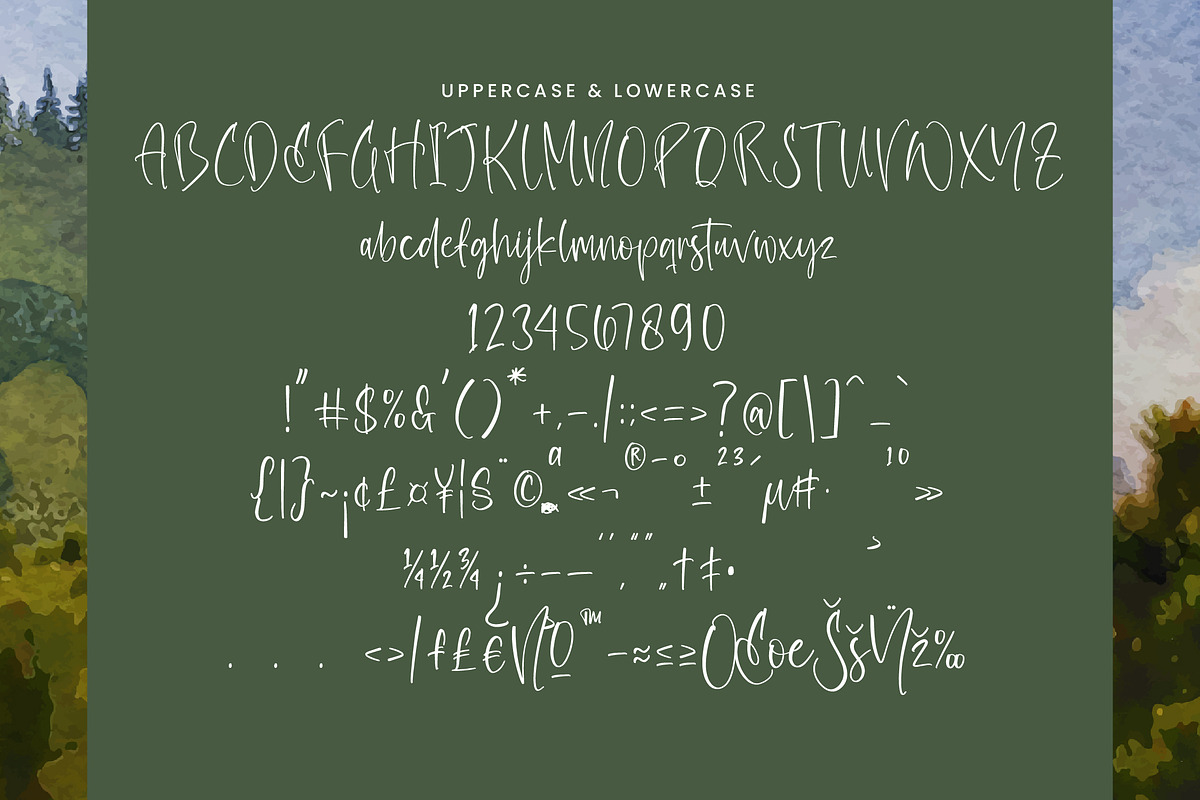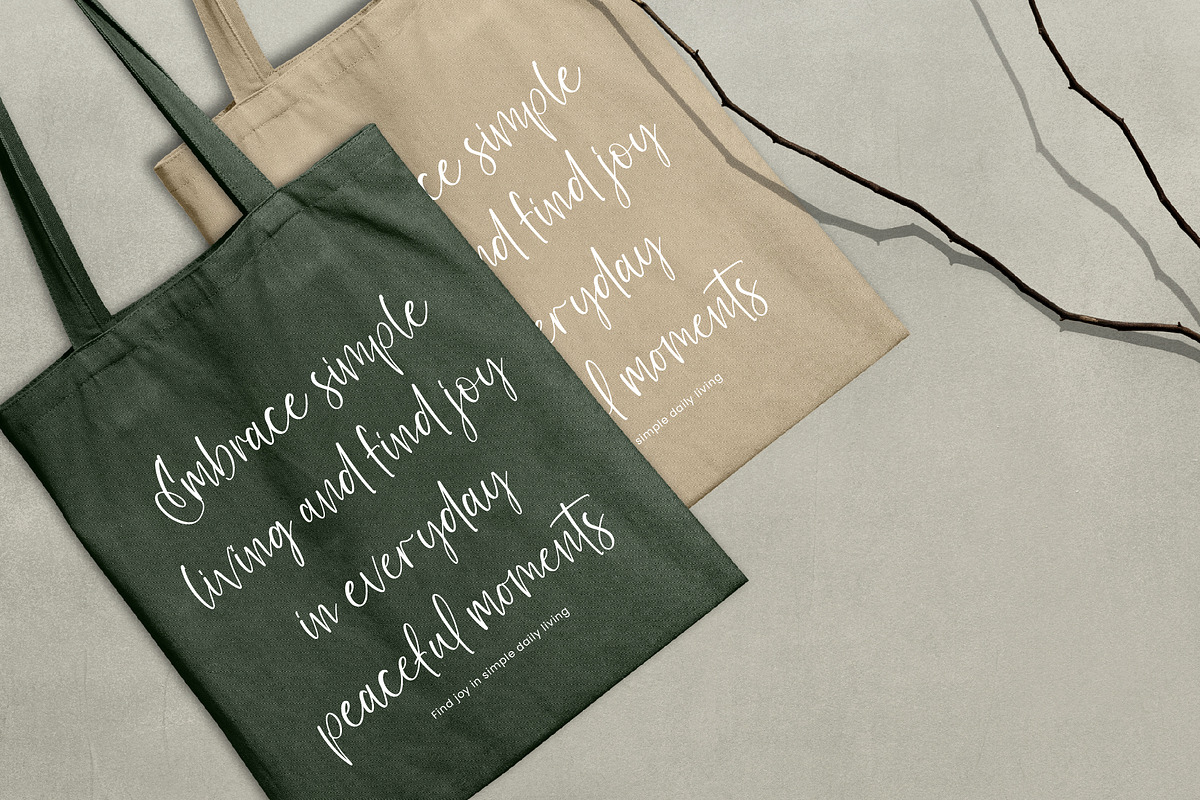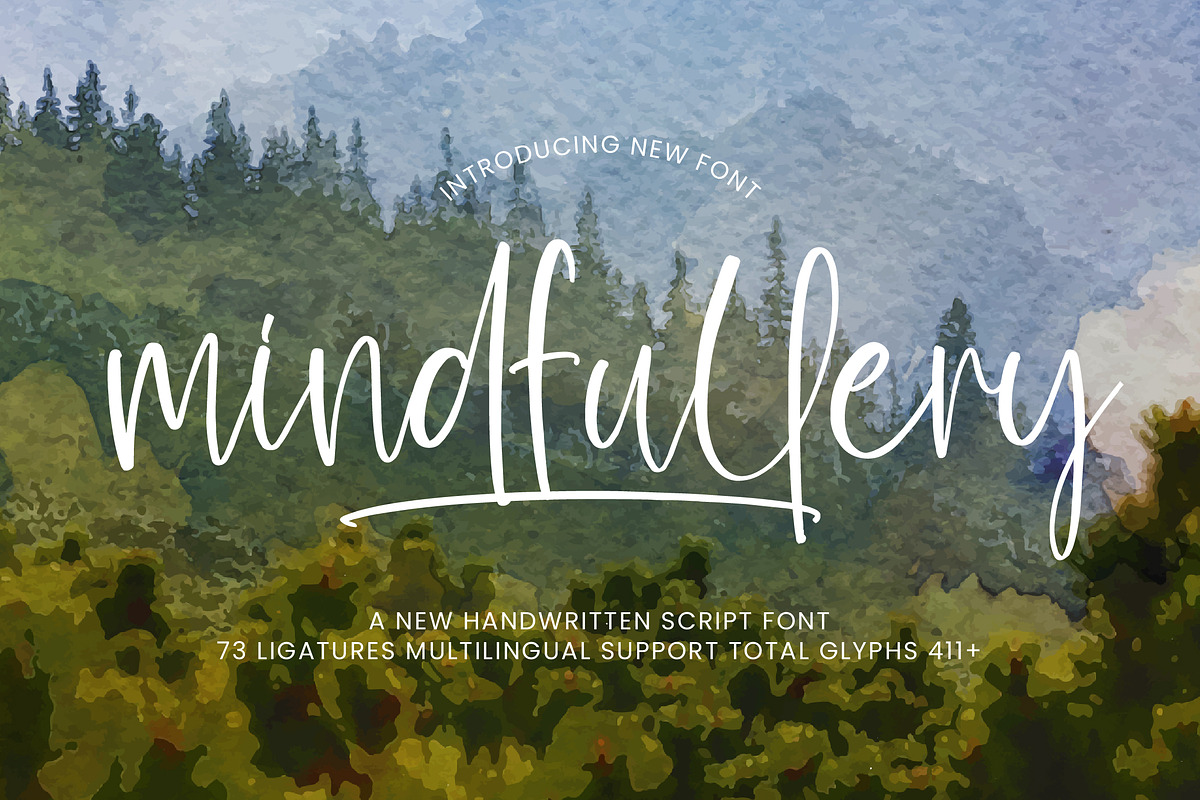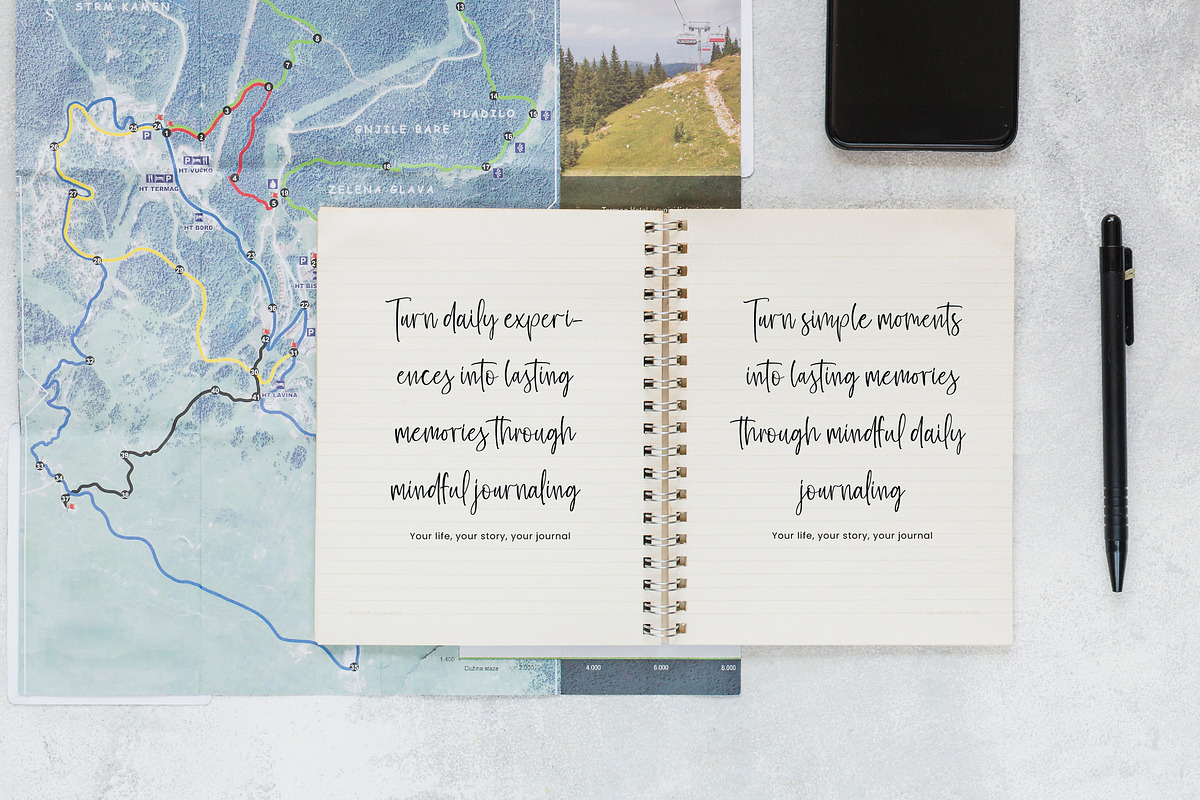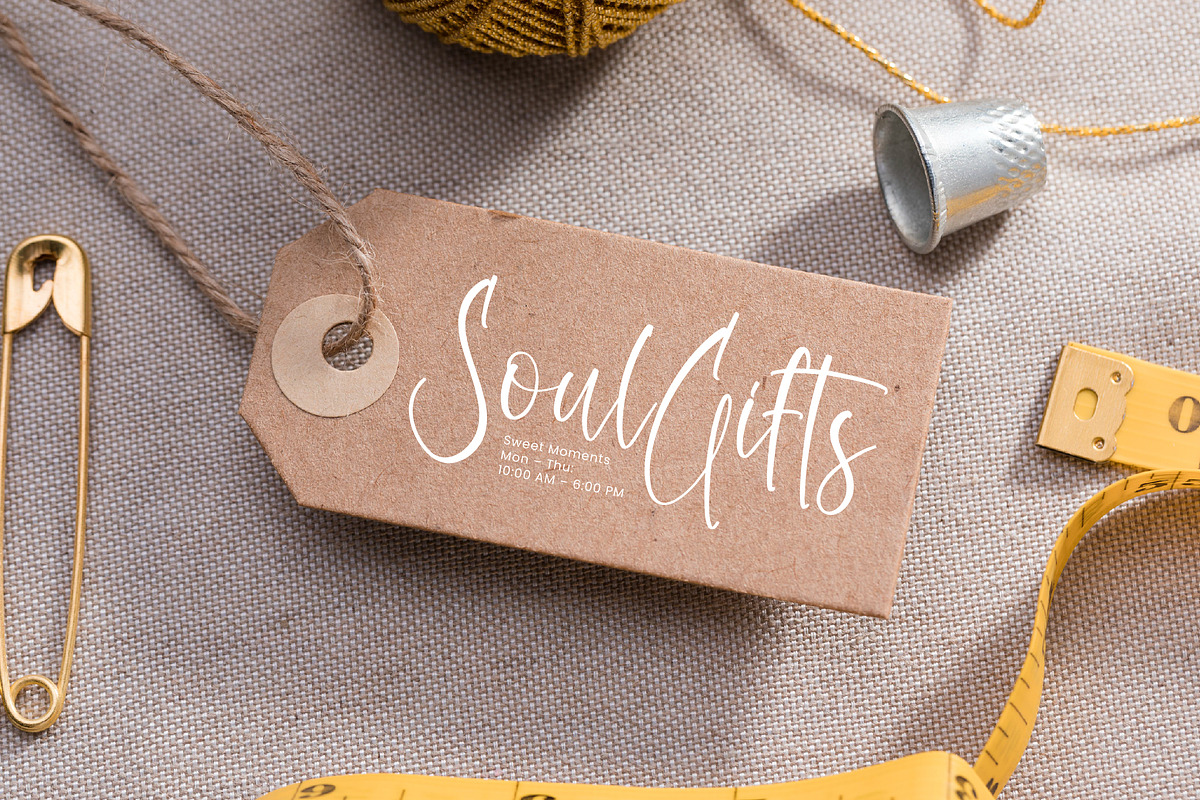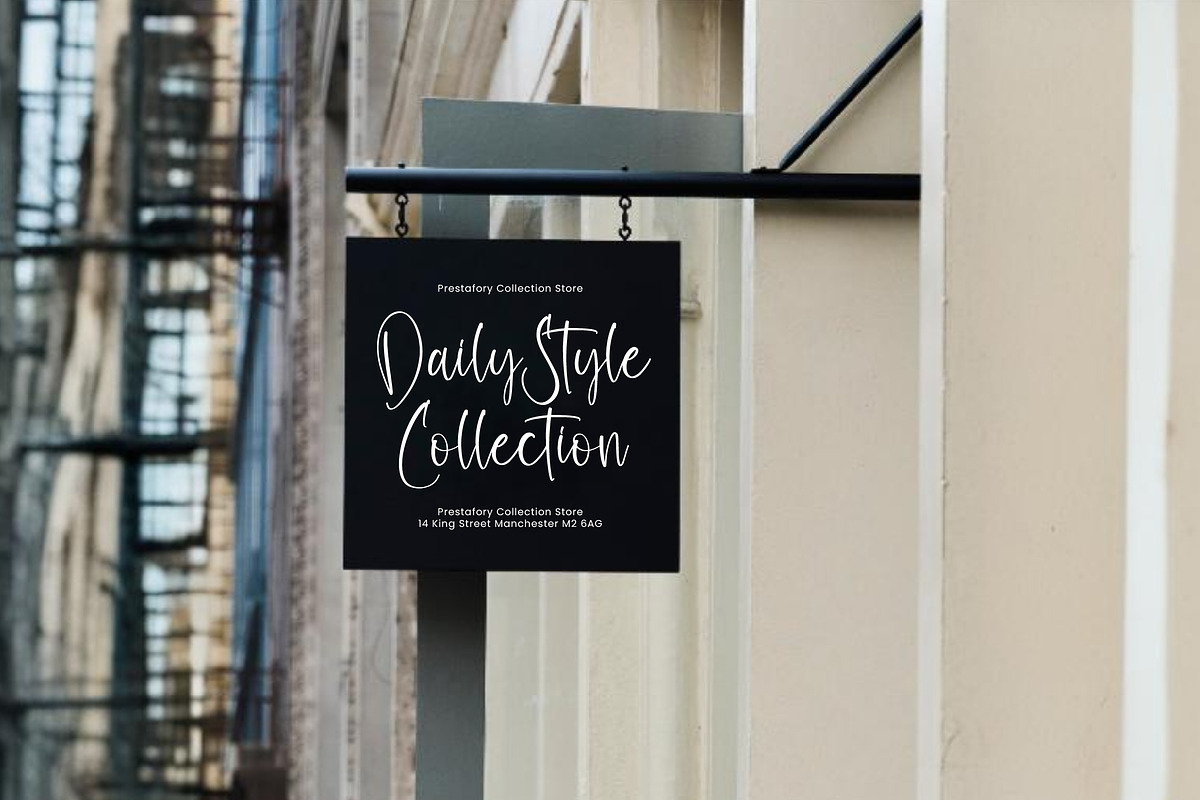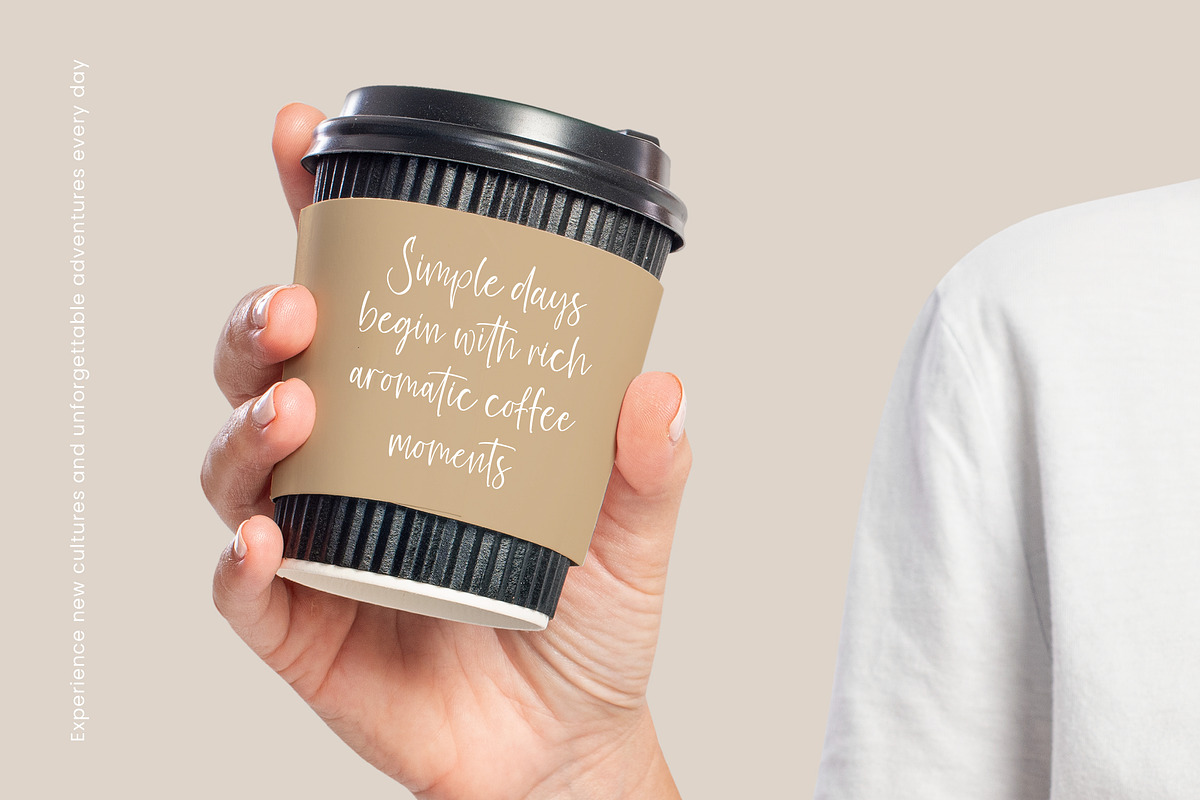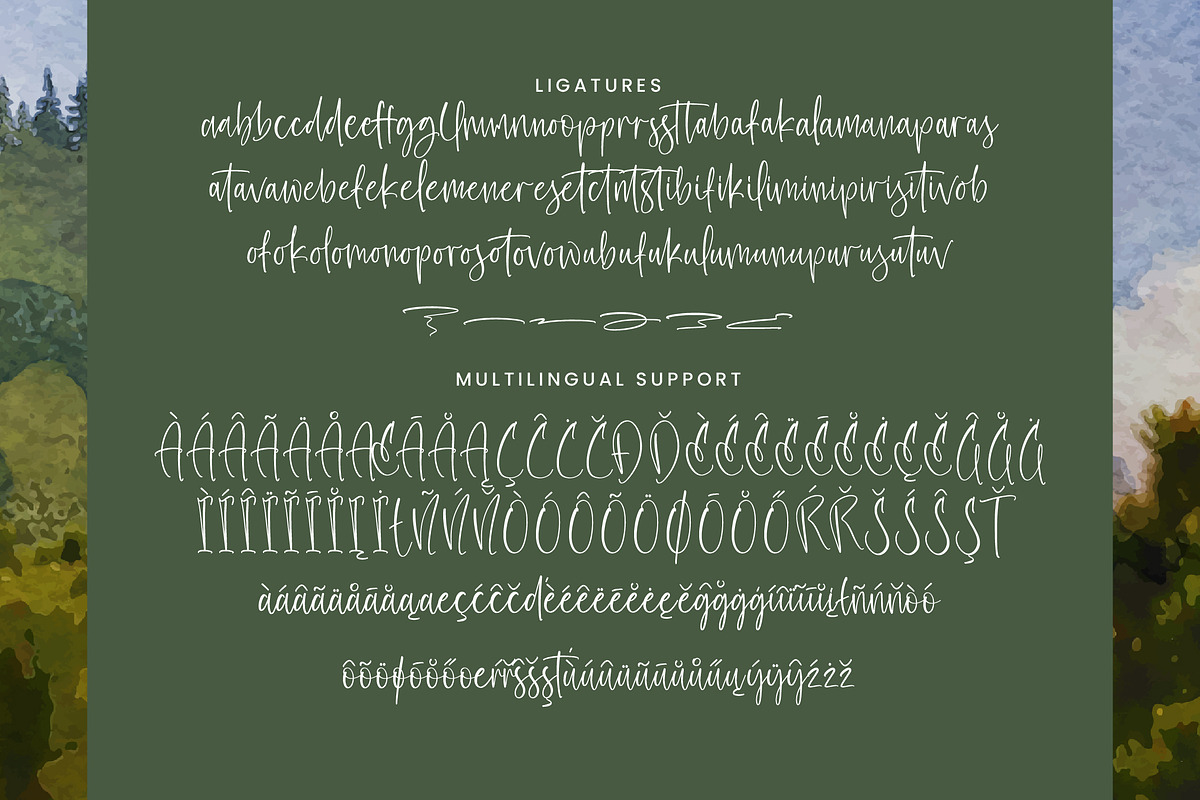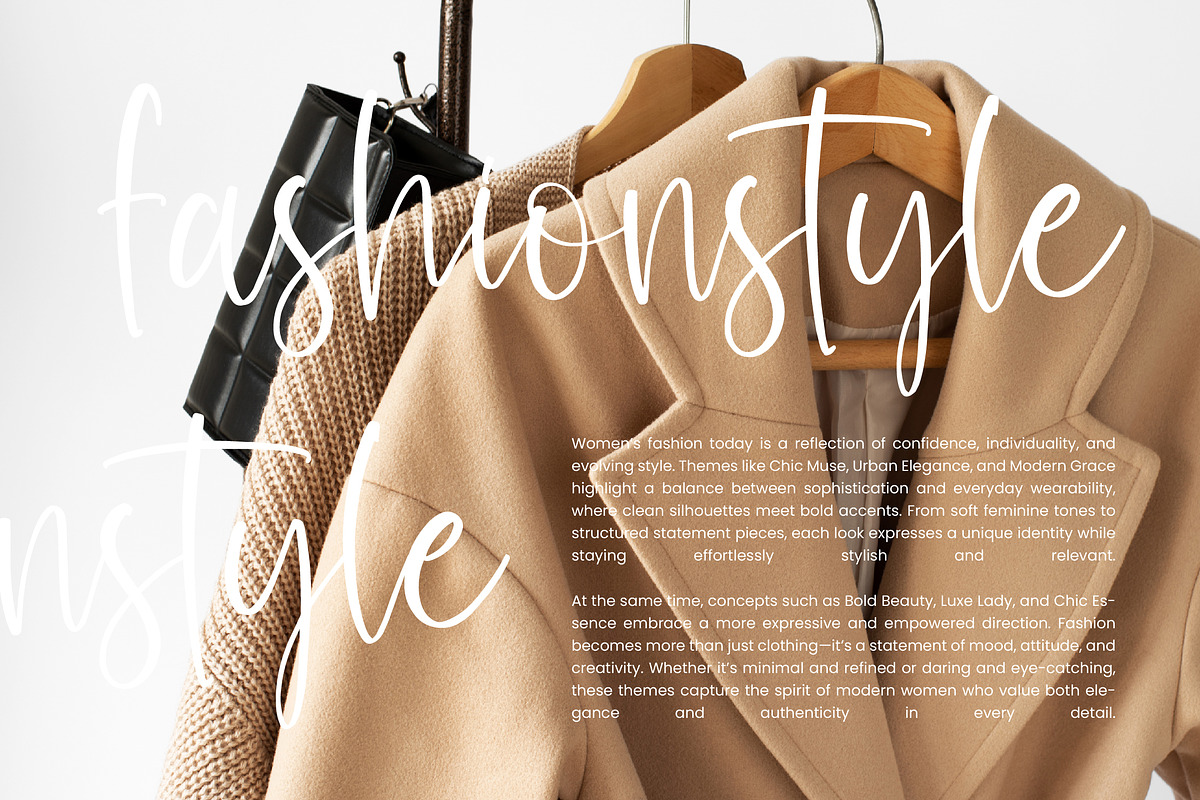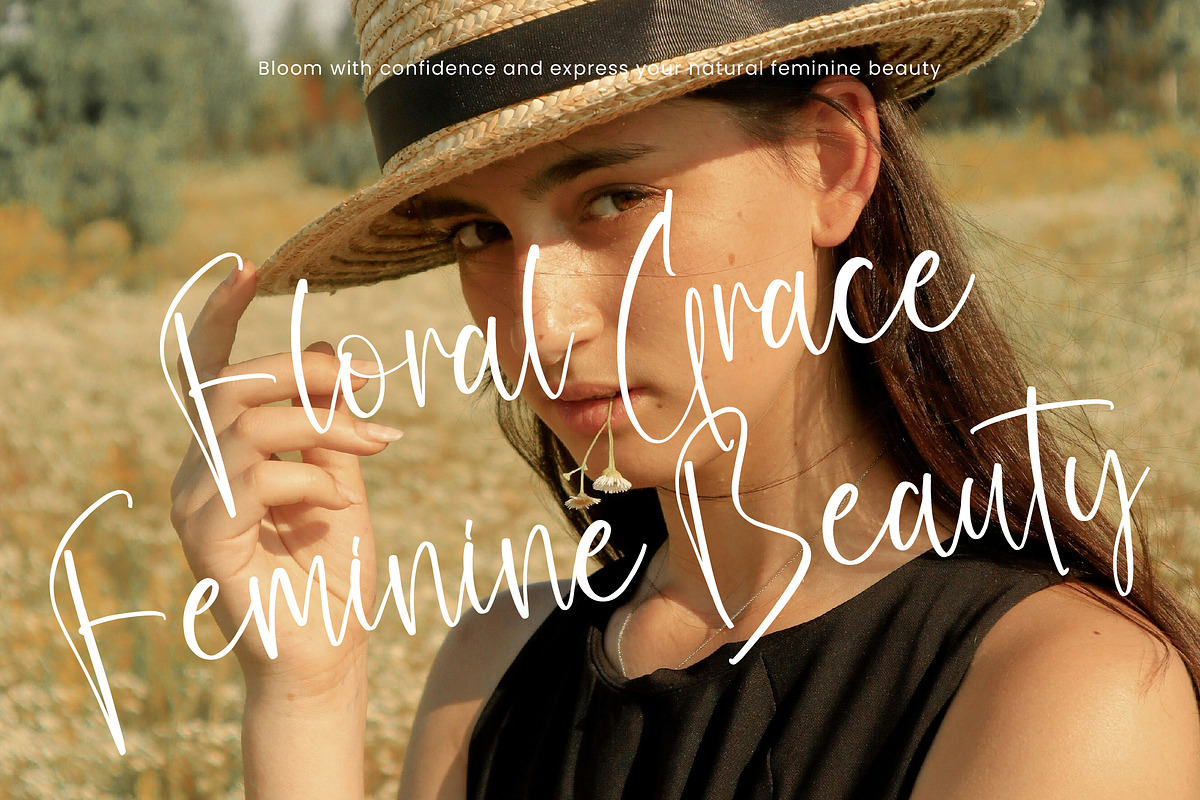
Mindfullery Handwritten Script
Mindfullery – Handwritten Script Font
Mindfullery is a smooth and elegant handwritten script font with a natural flow and modern touch. Designed to feel personal and calming, it brings a refined yet friendly character to any project.
Ideal for branding, invitations, quotes, packaging, lifestyle designs, and editorial content that needs a soft and stylish look.